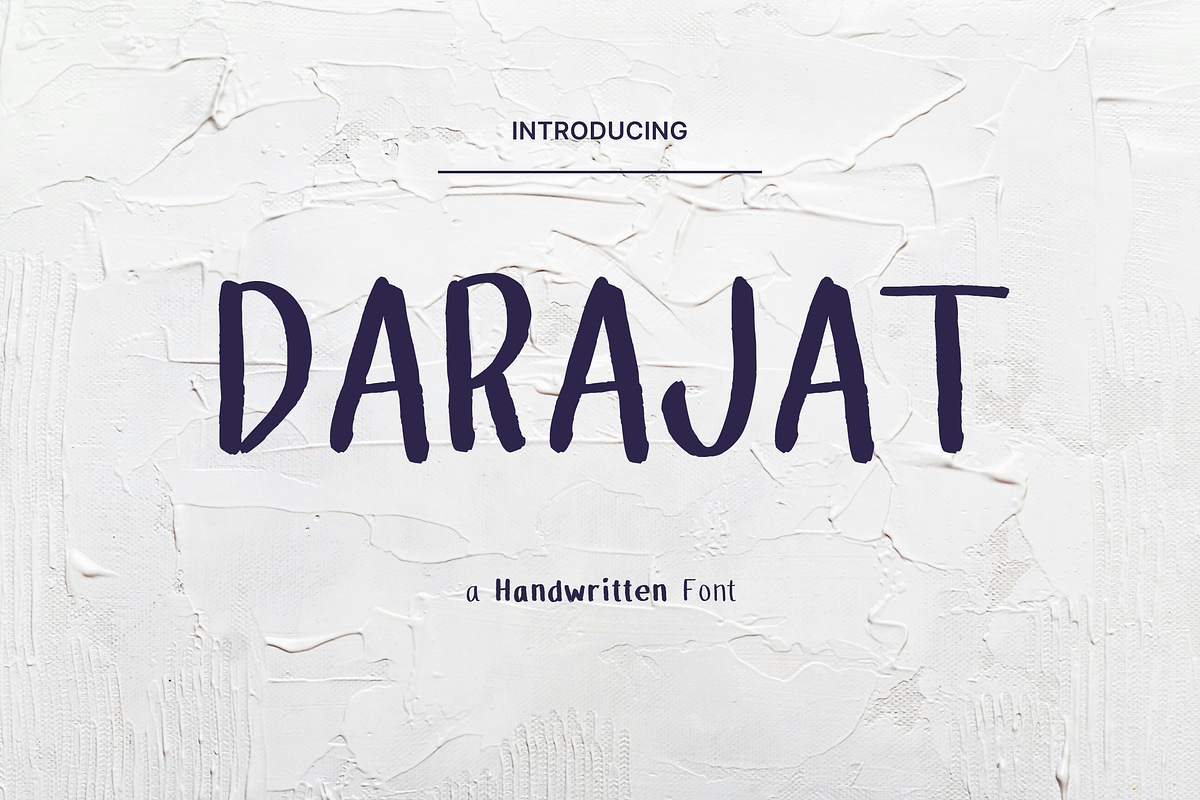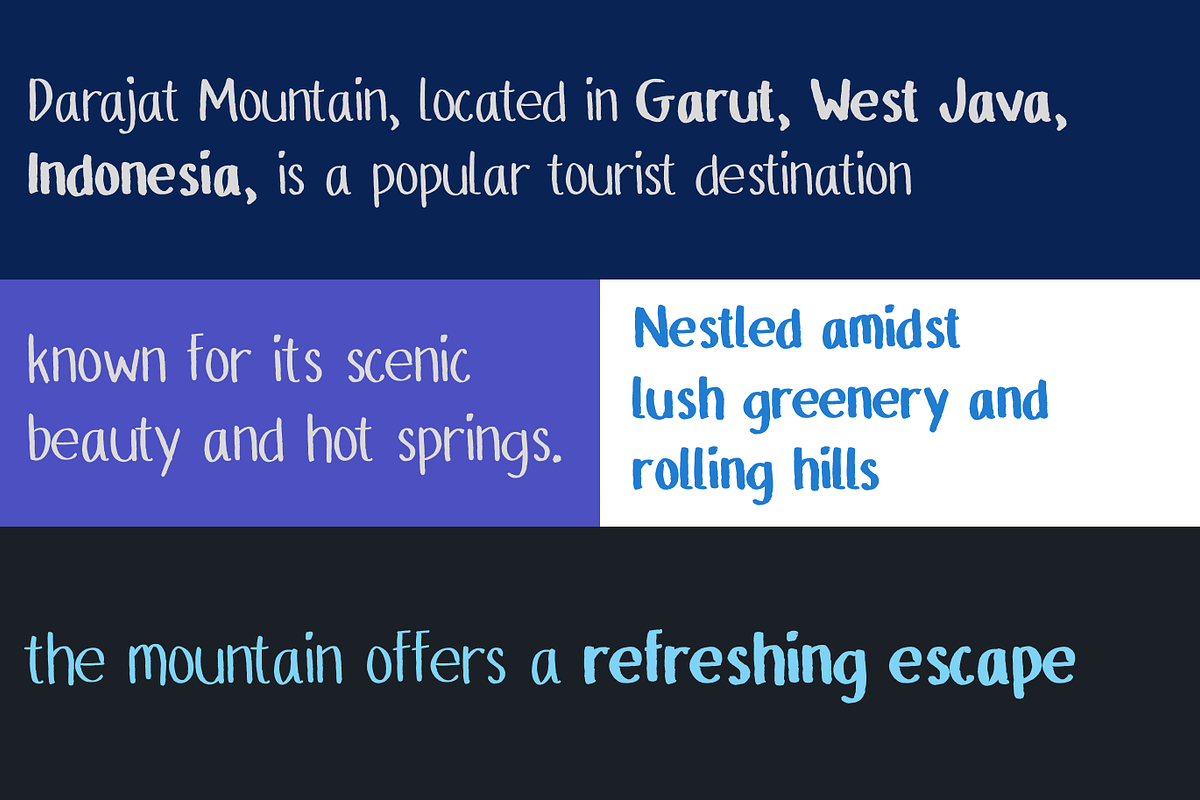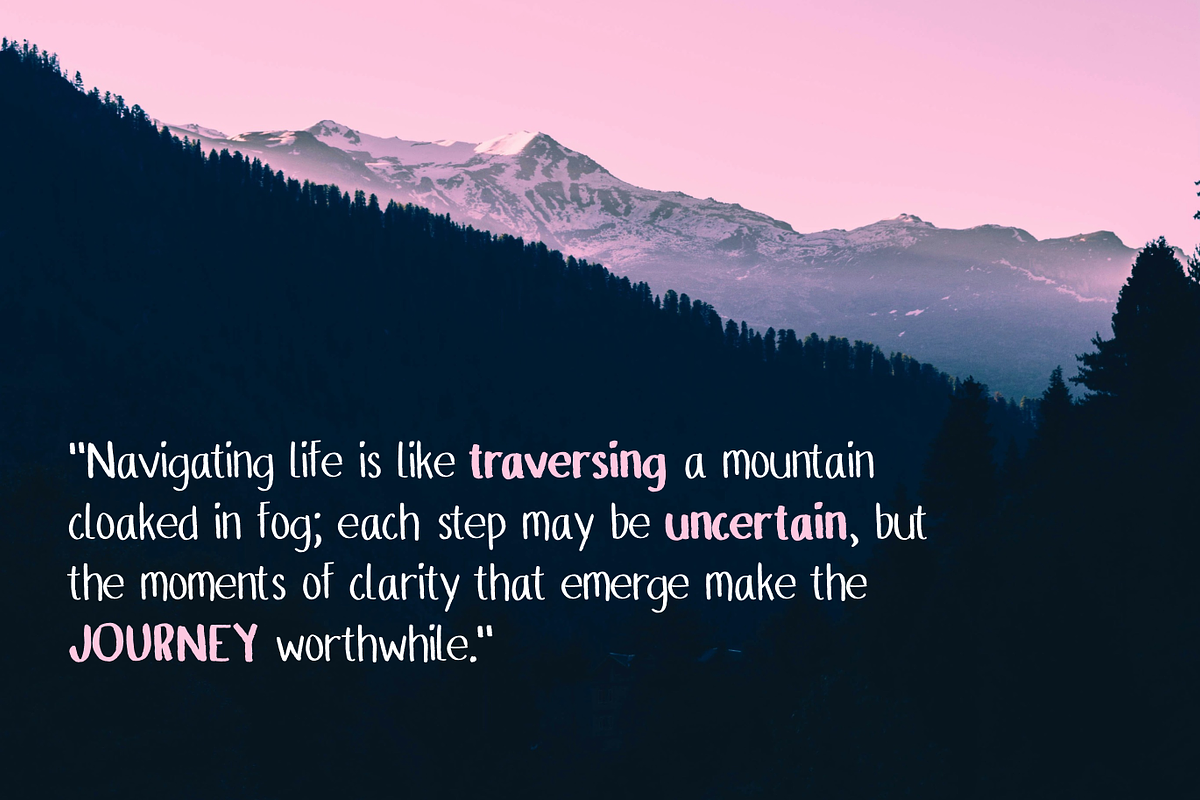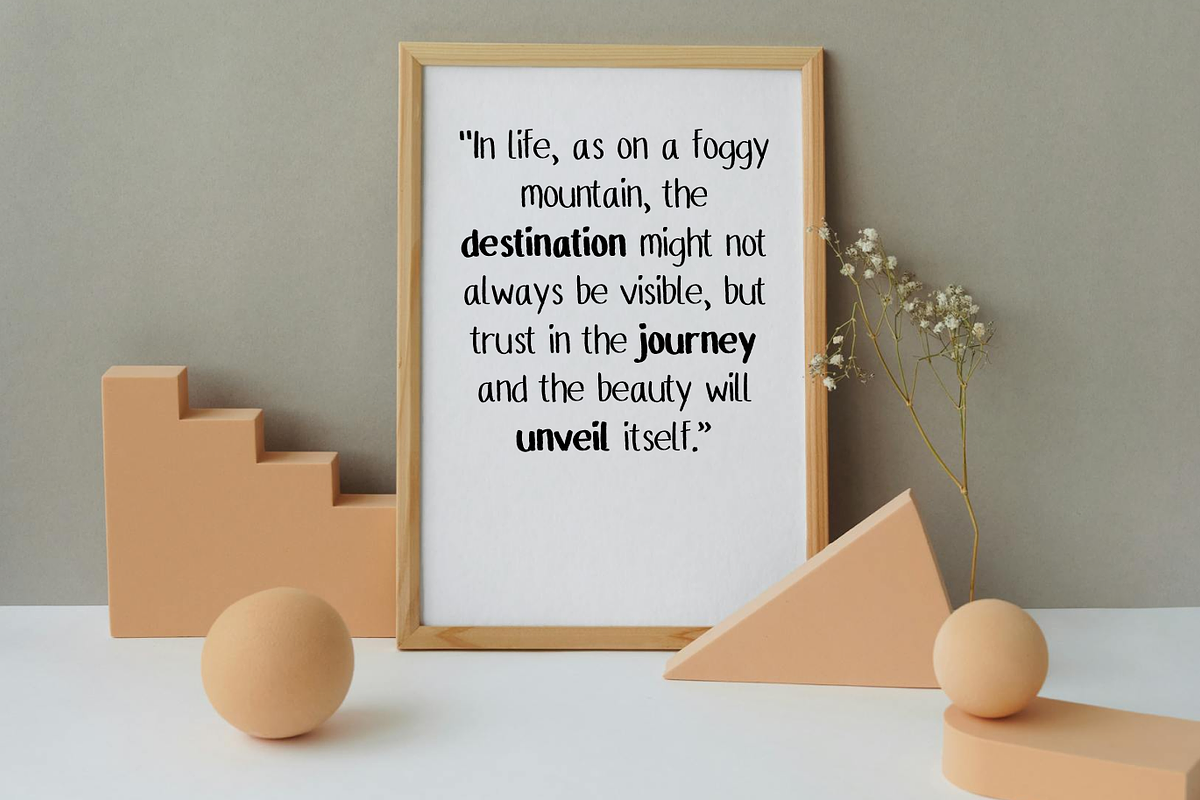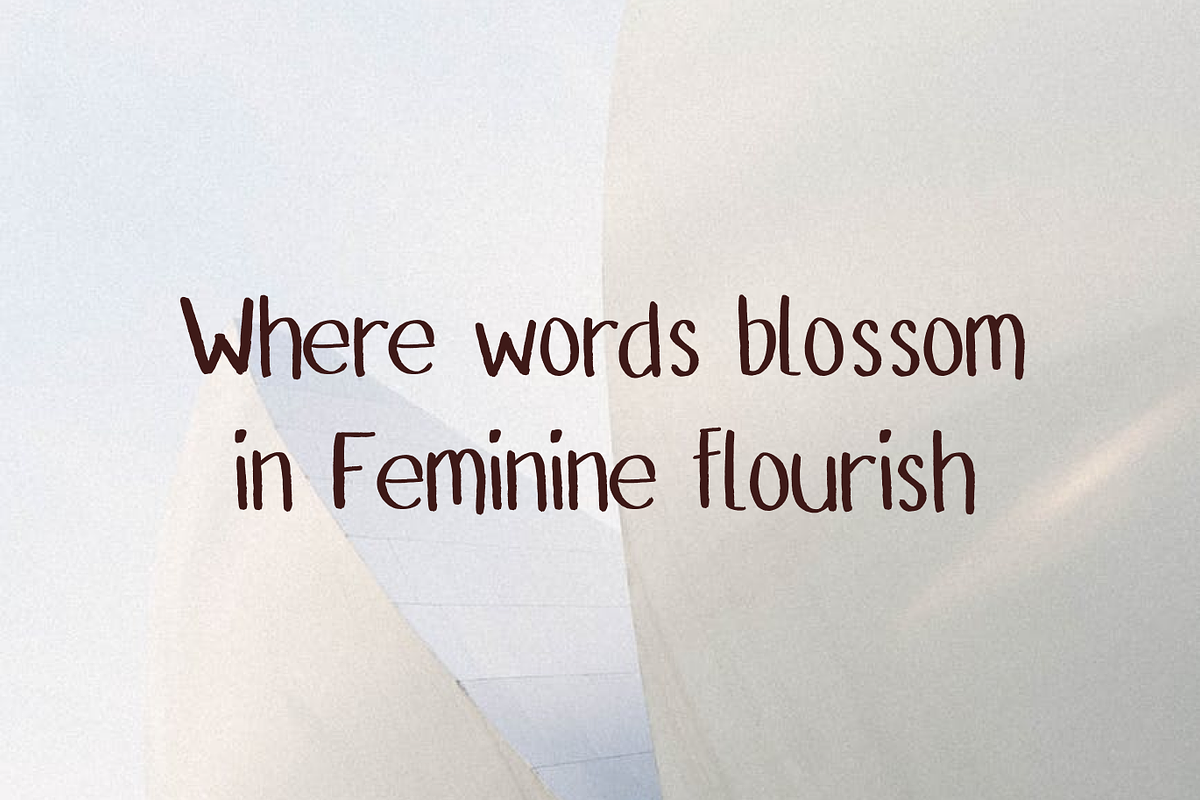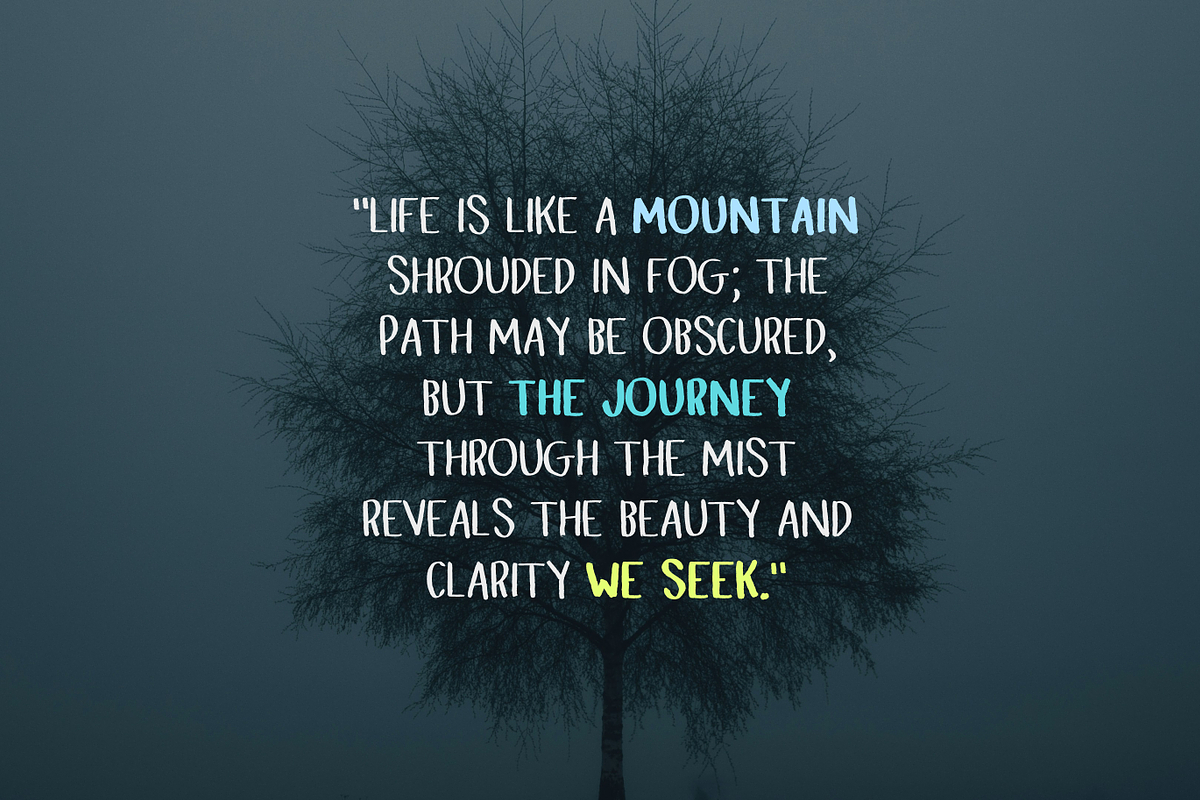
Darajat Handwritten Font
Introducing Darajat Font – a versatile and stylish handwriting marker brush font designed to elevate your creative projects. Perfectly capturing the natural flow and texture of hand-drawn strokes, Darajat Font offers both regular and bold weights, making it ideal for a wide range of applications.
Whether you're designing logos, creating eye-catching social media graphics, or adding a personal touch to invitations and greeting cards, Darajat Font delivers a unique and authentic look. Its non-cursive style ensures legibility while maintaining a playful and dynamic feel, making it suitable for both professional and casual use.
Crafted with attention to detail, Darajat Font brings the charm of handwritten notes to the digital world, providing you with the tools to make your designs stand out. Embrace the simplicity and elegance of Darajat Font, and let your creativity flow.